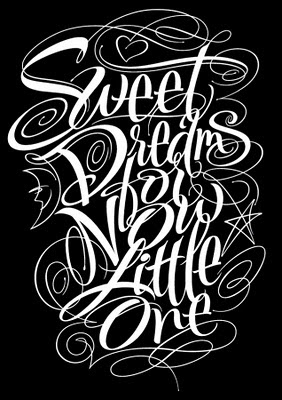
I wanted to write something beautiful with a pen last night. I had thought about this compostion for a couple weeks prior to lettering the words.
Beautiful!
ReplyDeleteBeautiful and whimsical - great job!
ReplyDeleteFantastic display of words and composition. Well done!